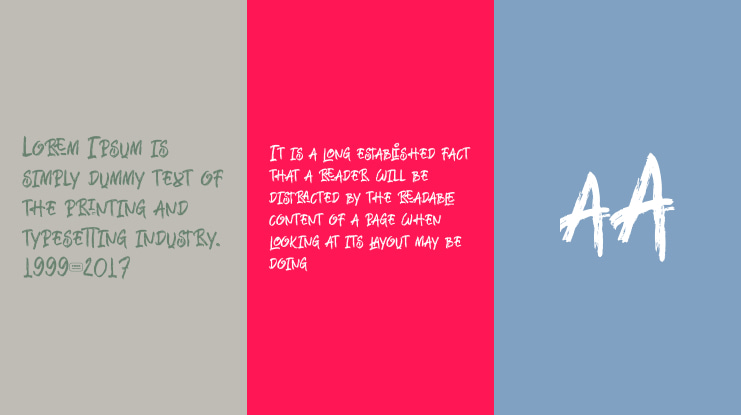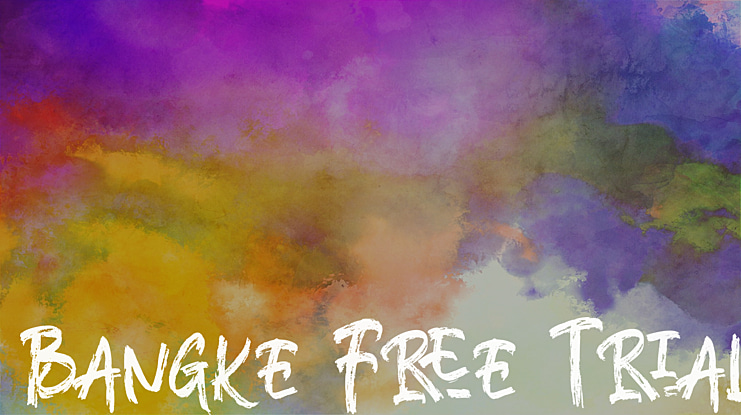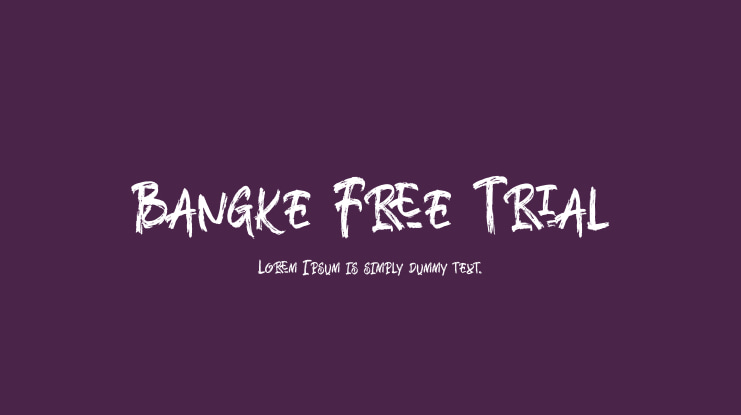
Bangke Free Trial Font
Bangke is a textured brush font with rough and casual letters. It’s great for logos, branding, print projects and any attention drawing headline.